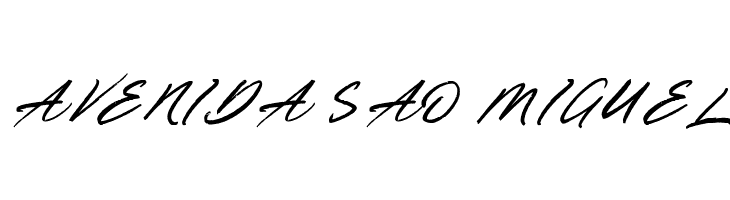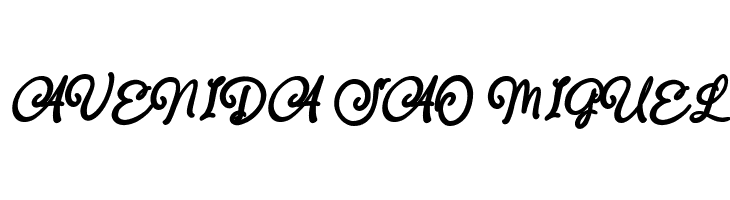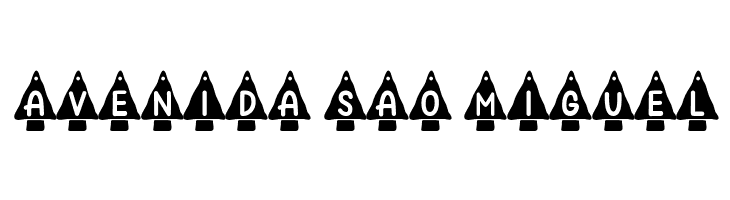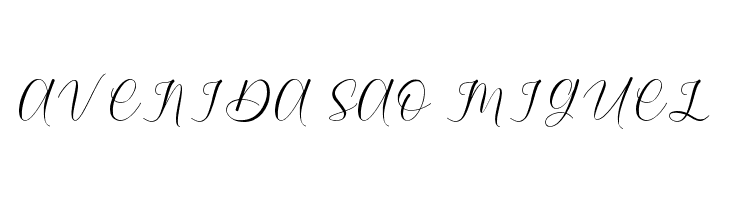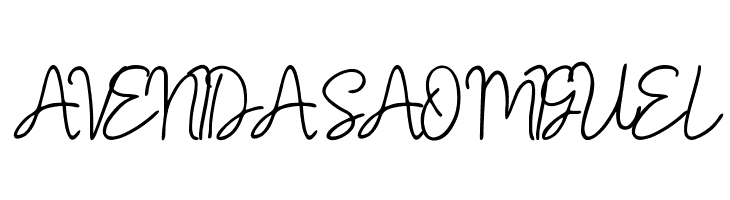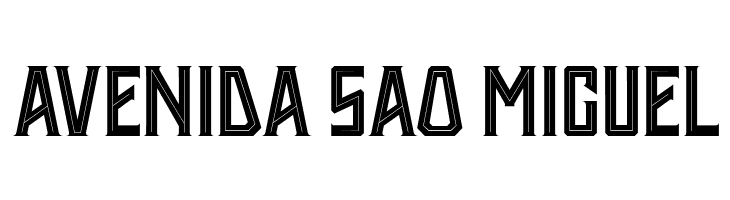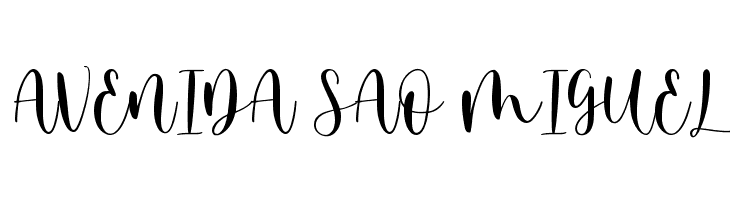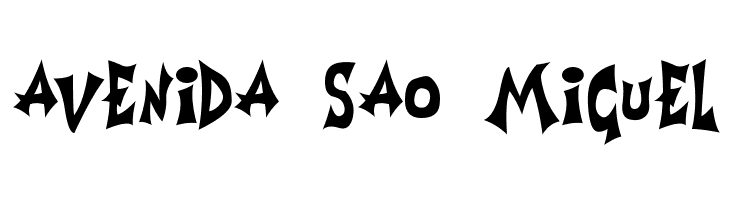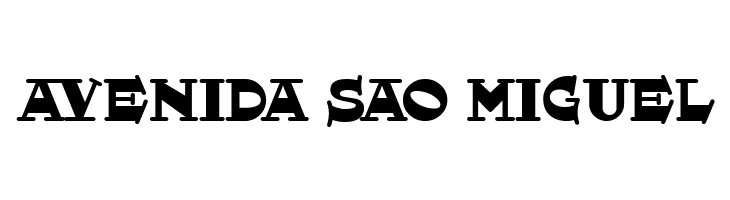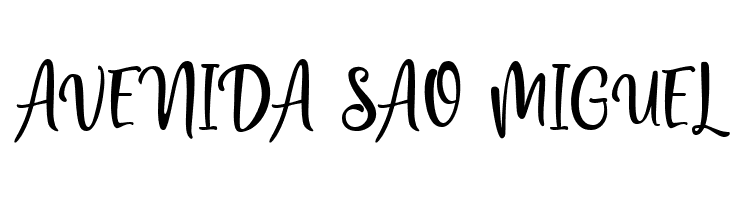
A playful, handwritten cursive font with smooth, connected strokes.
A bold, cursive font with a playful and dynamic style.
A festive, tree-shaped font perfect for holiday designs.
A dynamic and elegant script font with fluid, cursive strokes.
A bold, geometric font with sharp angles and high contrast.
A playful and elegant cursive font with dynamic stroke variations.
A playful and whimsical script font with a hand-drawn aesthetic.
An elegant script font with flowing, cursive letters and high contrast strokes.
A bold, whimsical font with exaggerated serifs and a playful, vintage feel.
A bold, dramatic font with sharp, angular edges and a theatrical flair.